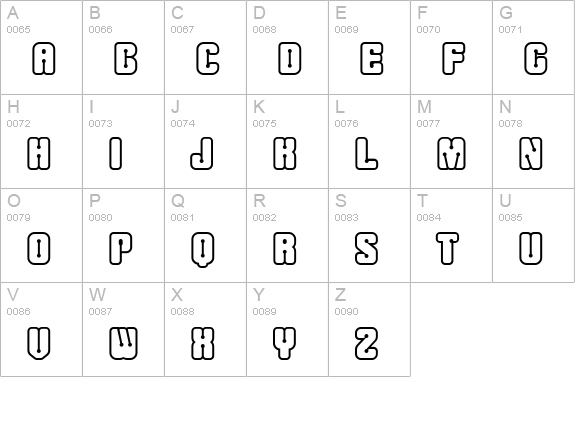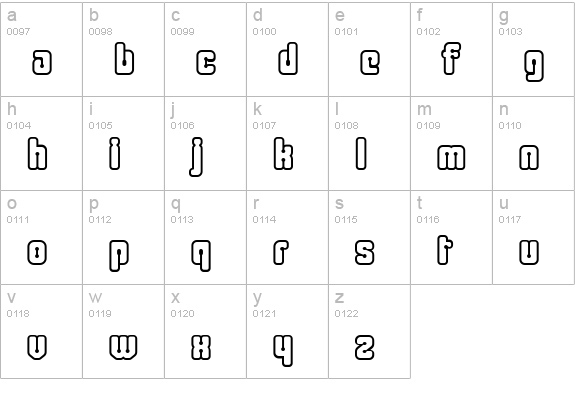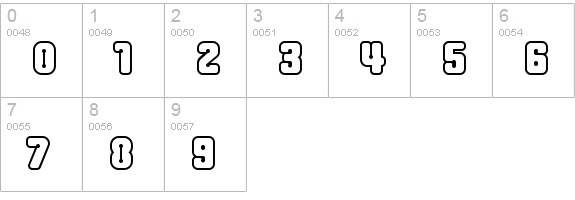
Clipe Open Font Details
Clipe Open font is a modern and elegant typeface that exudes sophistication and style. With its sleek lines and balanced proportions, Clipe Open is perfect for a wide range of design projects, from branding to editorial design. This versatile font is both professional and approachable, making it a great choice for any project that requires a clean and contemporary look. One of the best things about Clipe Open font is that it is completely free to download at FontsMarket.com. This means that you can easily access this high-quality typeface without having to worry about any extra costs. Whether you are a seasoned designer looking to refresh your font collection or a beginner in need of a versatile typeface, Clipe Open font is the perfect choice for you. Don't miss out on the opportunity to enhance your designs with the stylish and modern Clipe Open font. Download it for free today at FontsMarket.com and elevate your projects with this sophisticated typeface.